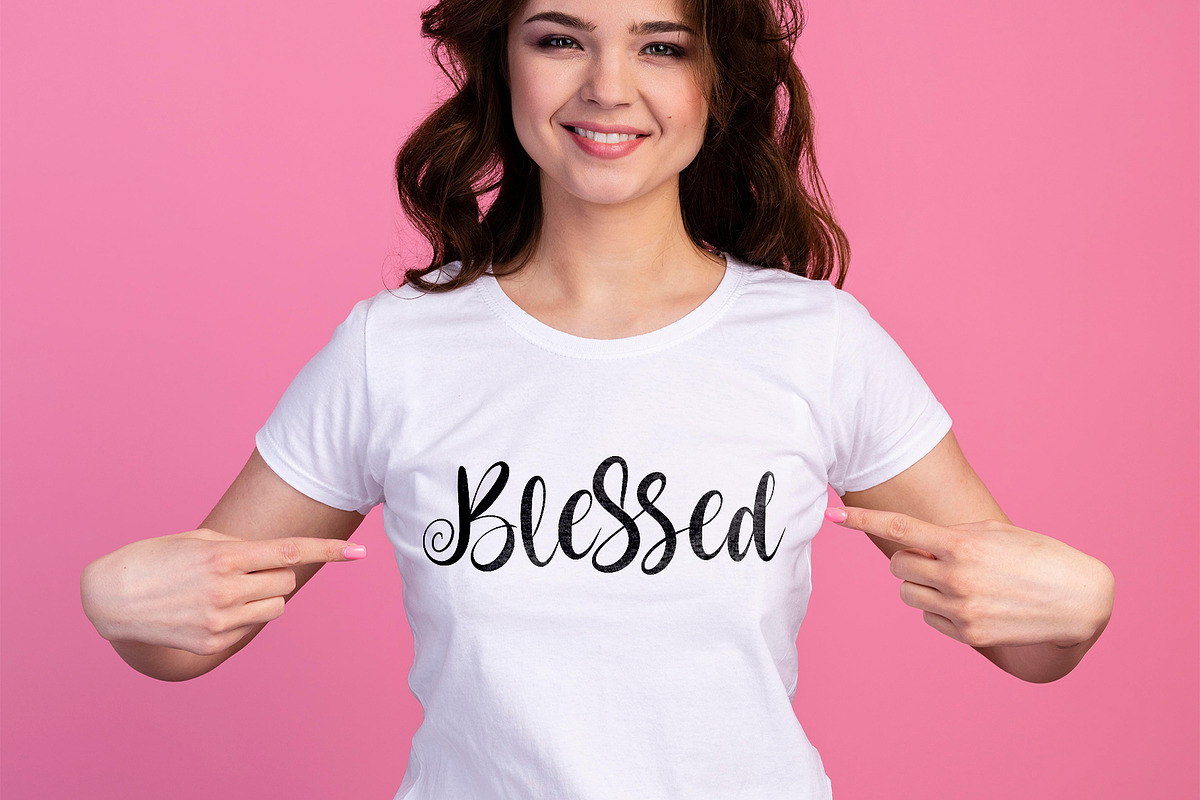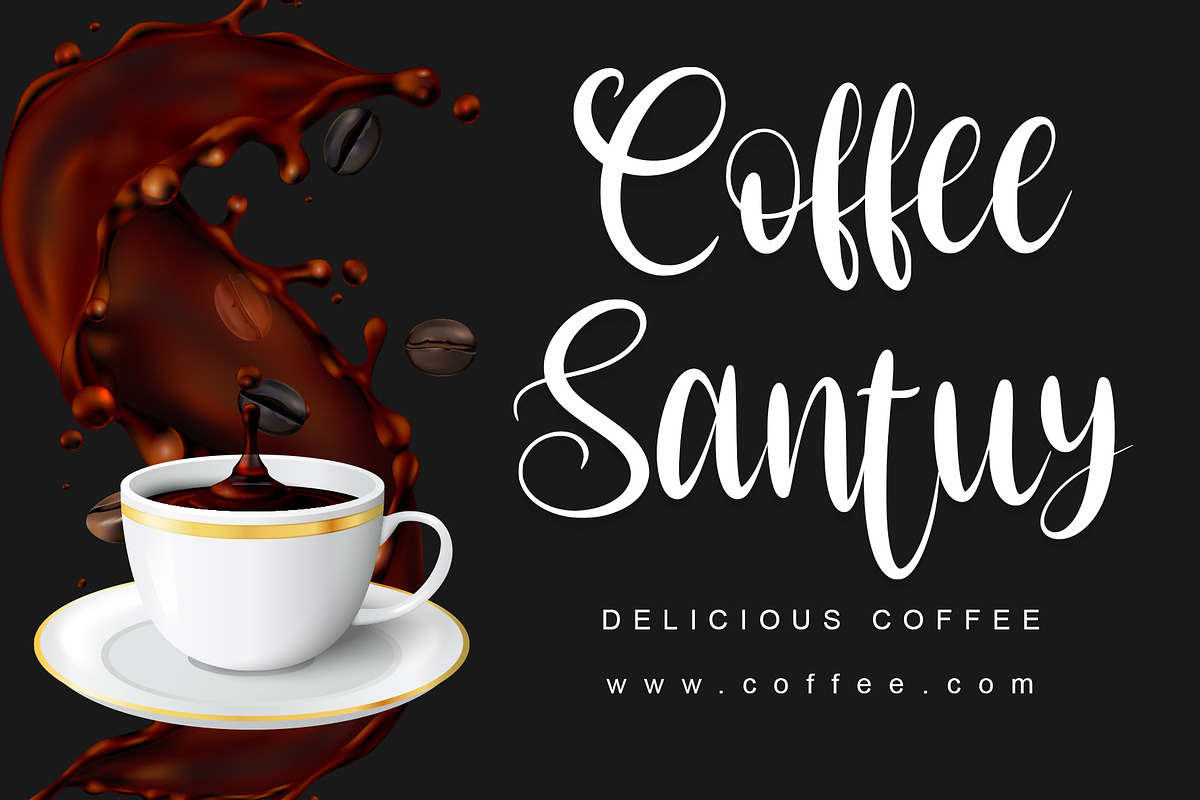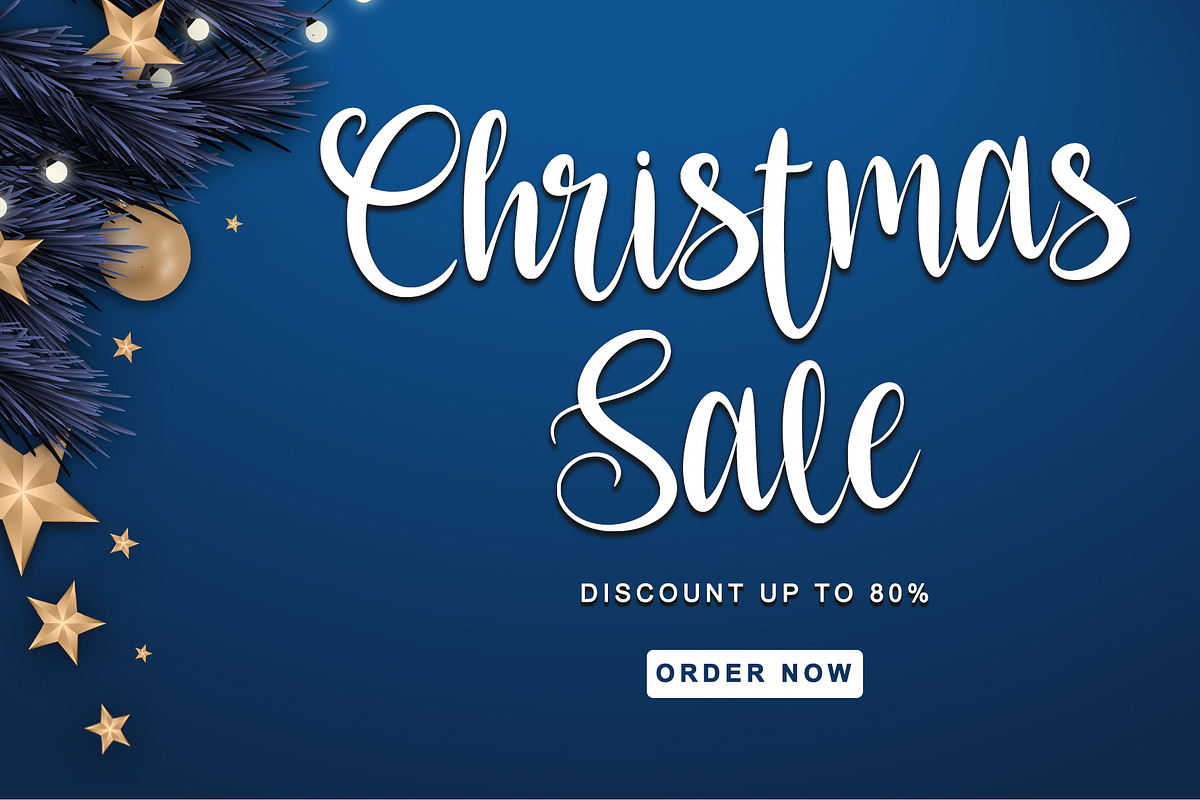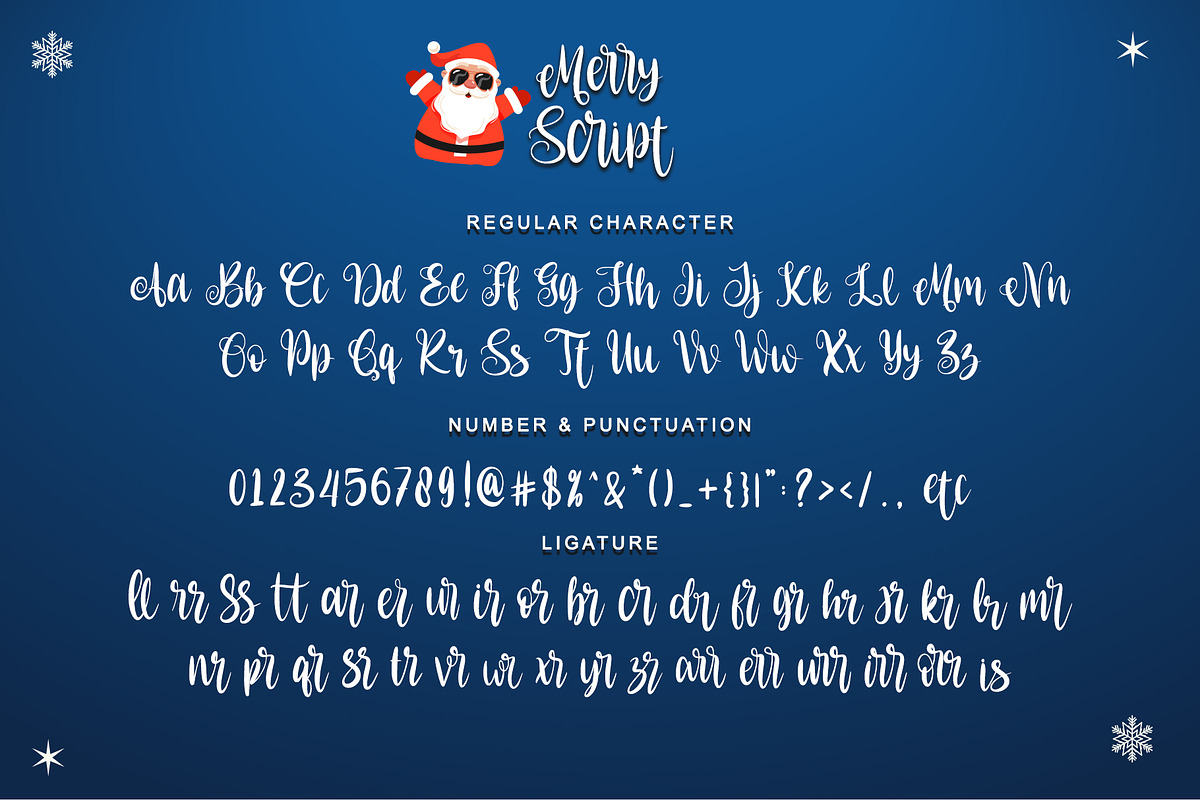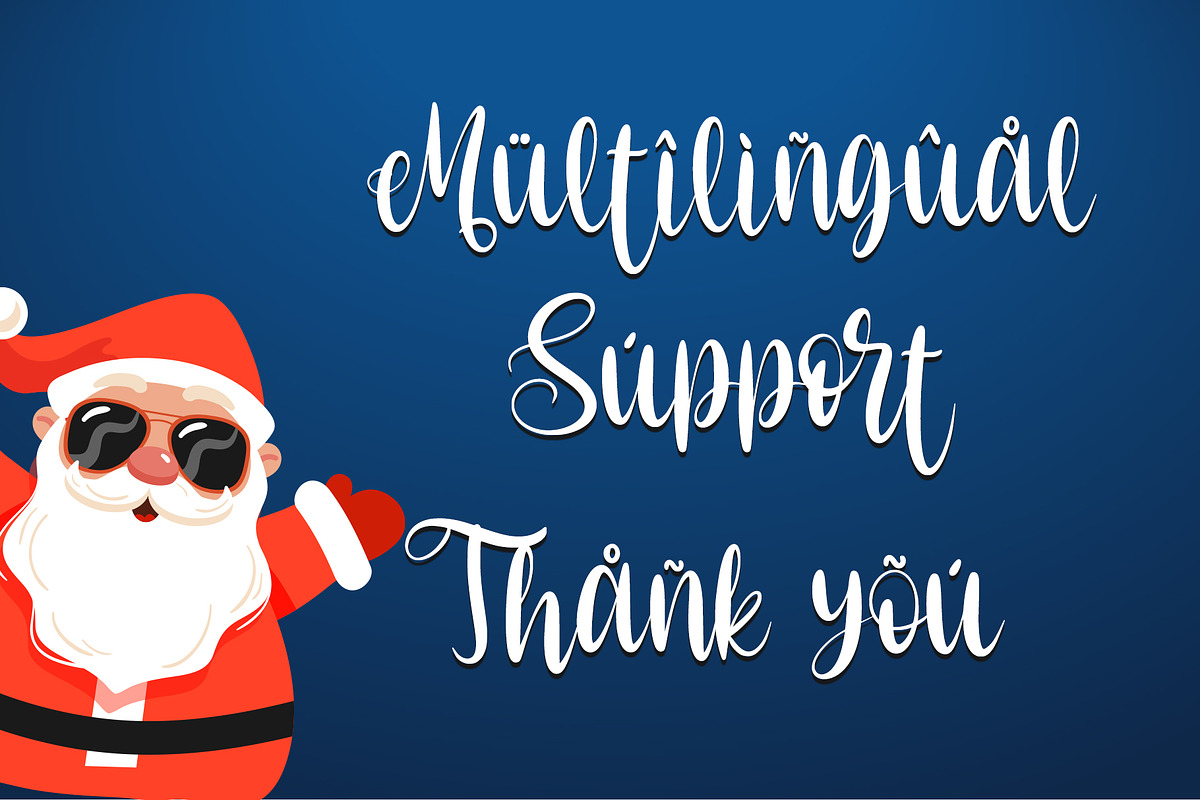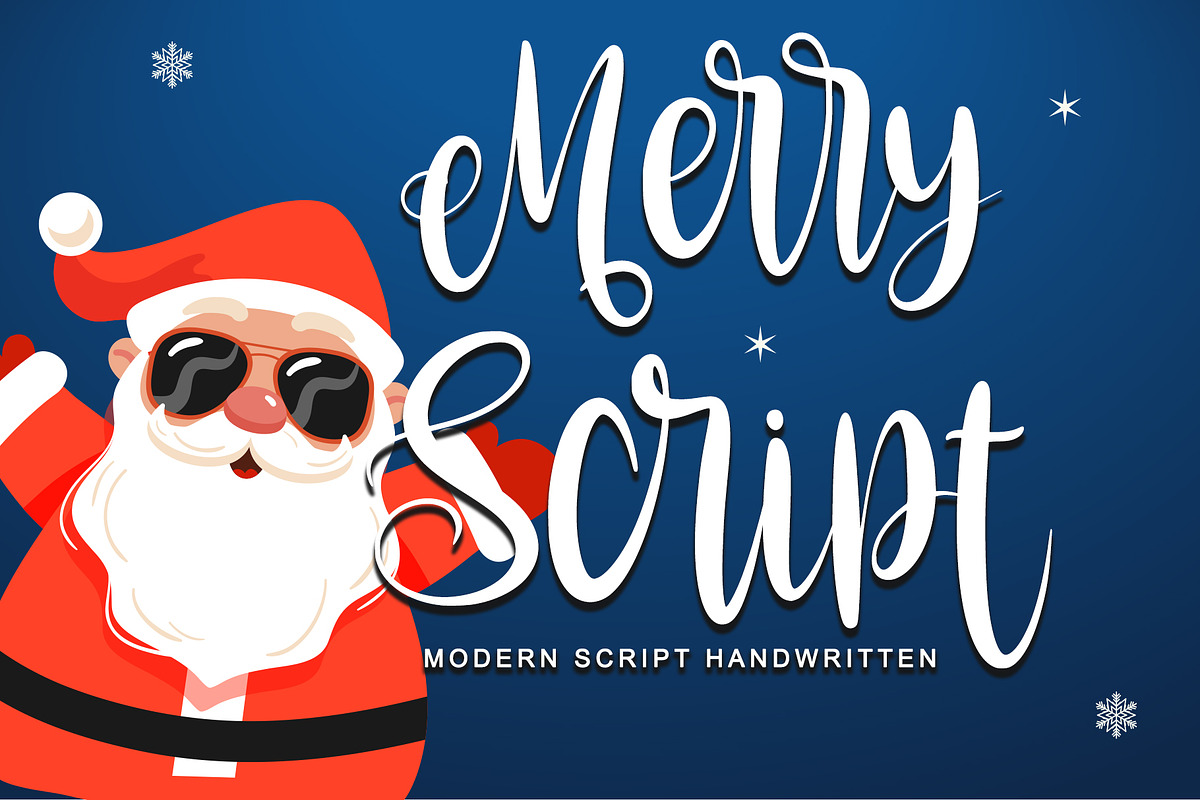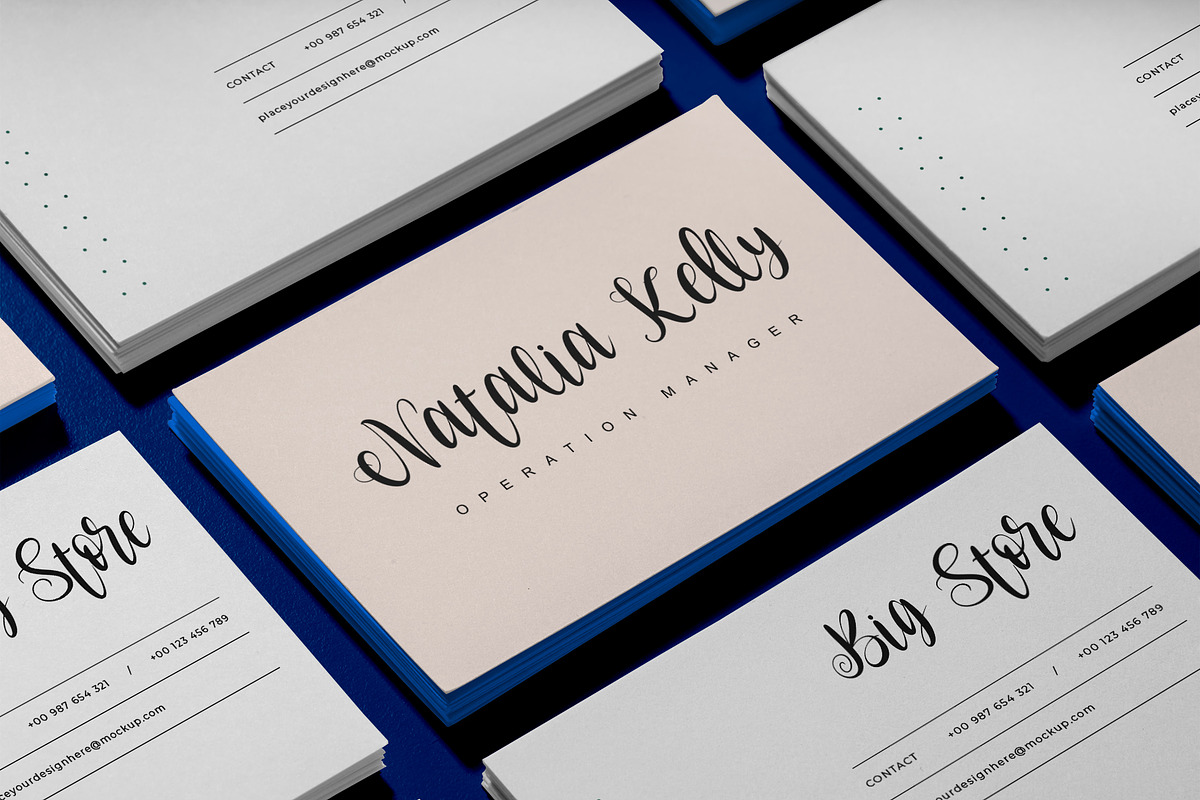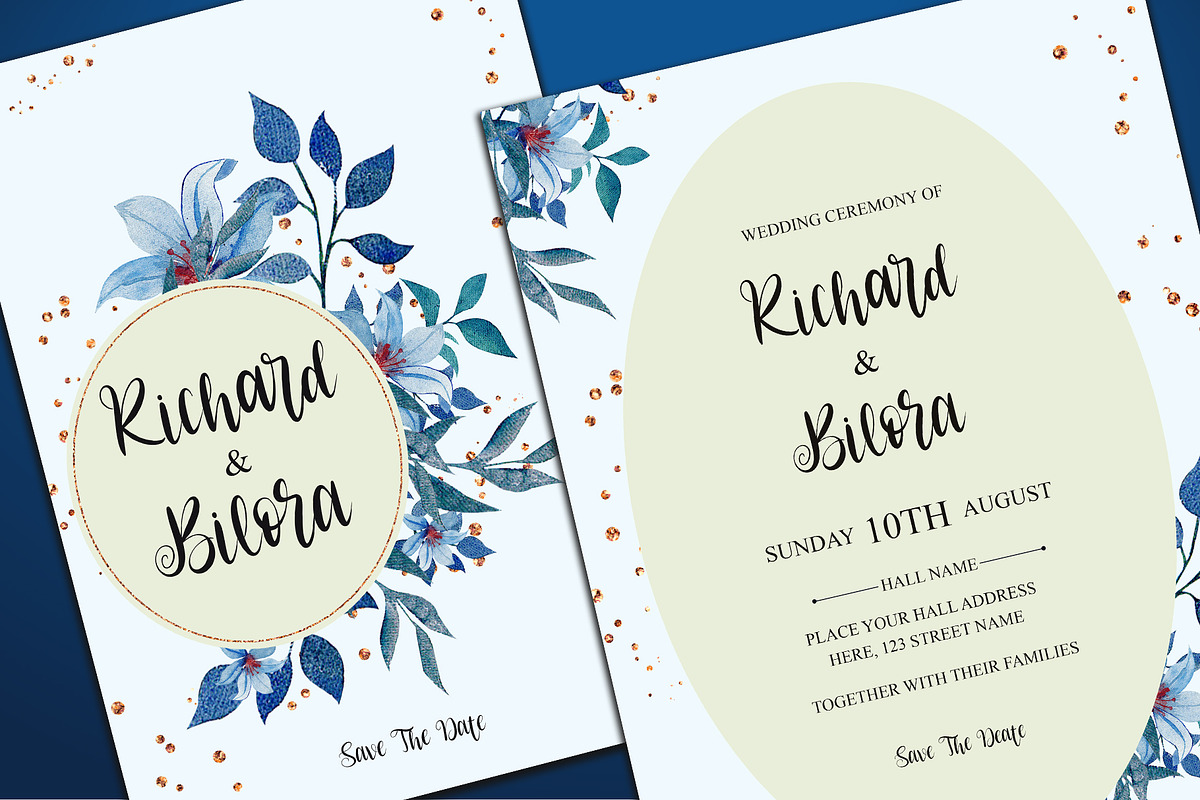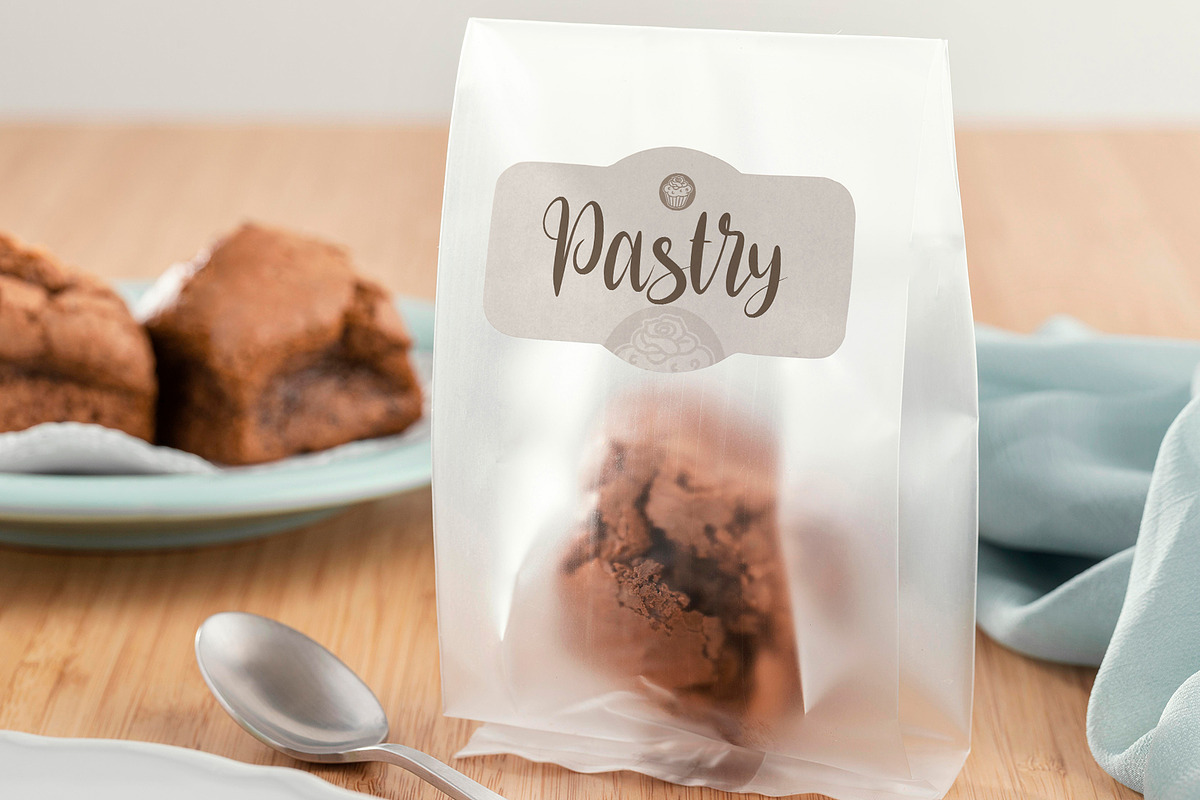
Merry Script
Merry script font that is simple and unique looking. Its beautiful charm makes it appear wonderfully down-to-earth, readable and, ultimately, incredibly versatile. This will add a fun and friendly touch to any of your projects! This font is PUA encoded which means you can access all glyphs and sweeps easily.